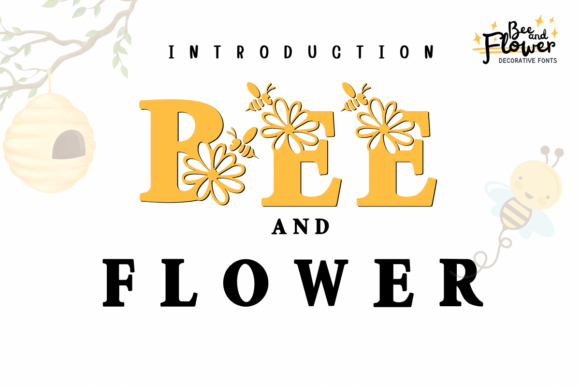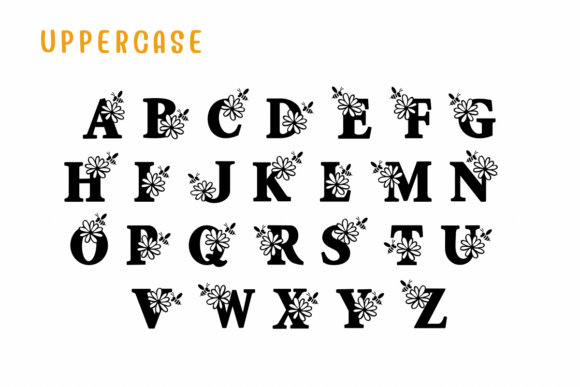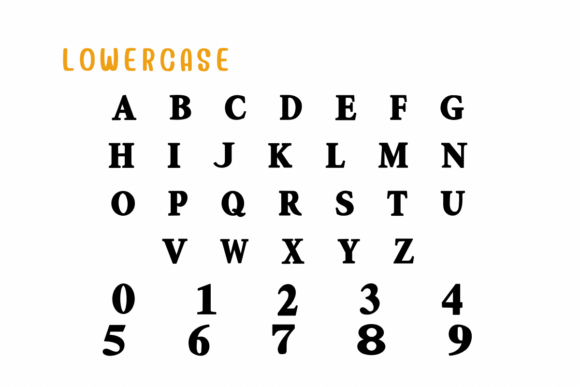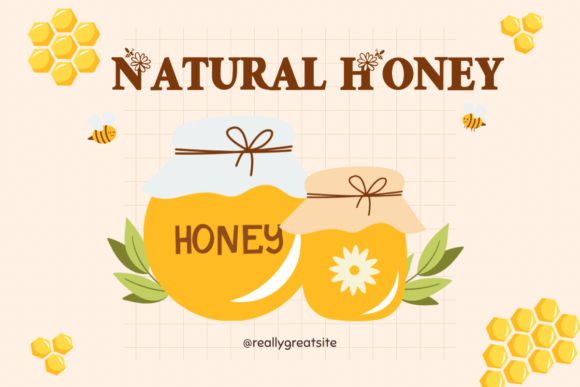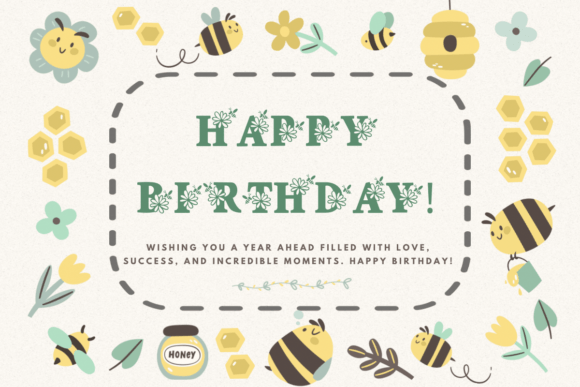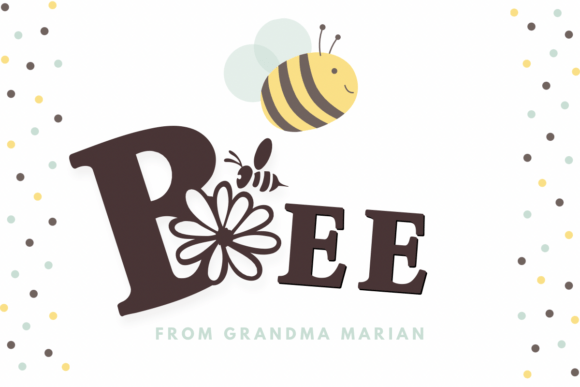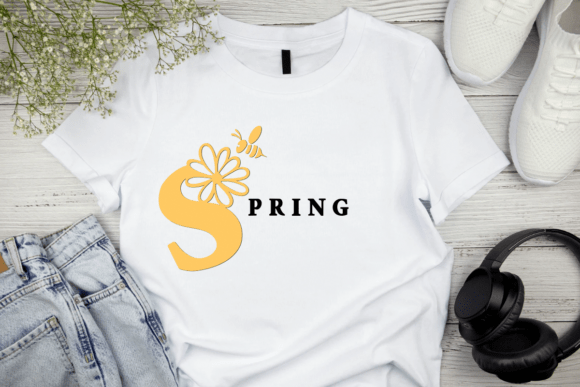
Get Ready to Bloom with Creativity
Have you ever sat down with a blank page, pen in hand, and felt the urge to let your imagination run wild? For many creatives, those moments are what spark some of their best work. Perhaps you’re a stationery enthusiast, a crafty maker, or a social media influencer looking to add a personal touch to your posts. Whatever your creative pursuit, you’re about to discover a font that will bring your ideas to life.
Introducing the charming Flower and Bee Font, a beautiful Decorative font that’s perfect for writing love letters, creating handmade cards, or even designing banners for your next event. Its whimsical style makes it an excellent choice for various projects, from mugs and t-shirts to social media posts and stationery. With the Flower and Bee Font, the possibilities are endless, making it a valuable asset for any designer looking to add a touch of elegance and whimsy to their work.
Key Features of Flower and Bee Font
- Font Style: A unique, hand-drawn font with floral and bee-inspired designs, ideal for children’s books, garden-themed projects, and nature-inspired artwork.
- Character Set: Includes uppercase and lowercase letters, numbers, punctuation marks, and special characters, making it suitable for a wide range of applications.
Designer Review: Flower and Bee Font
I recently had the chance to work with the “Flower and Bee Font” and I must say it’s a delightful addition to any design project. ✨ The intricate details and delicate illustrations of flowers and bees add a whimsical touch that’s sure to captivate audiences of all ages. ✨ The font’s playful nature makes it perfect for projects that require a sense of wonder and magic.
However, I did encounter a few limitations that are worth noting. ⚠️ The font’s file size can be quite large, which may cause issues with page loading times or file compatibility. ⚠️ Additionally, the font’s complexity may make it challenging to pair with other fonts or design elements, requiring some careful consideration and planning.
- Whimsical and playful design
- Intricate illustrations of flowers and bees
- Perfect for projects that require a sense of wonder and magic
- Large file size may cause issues with page loading times
- Complexity may make pairing with other fonts challenging
Overall, I think the “Flower and Bee Font” is a charming addition to any designer’s toolkit. While it may require some extra consideration and planning, the end result is well worth the effort.
The Flower and Bee Font is ideal for:
1. Gardening and floral-themed designs.
2. Children’s books and educational materials.
3. Wedding invitations and stationery.
Remember to use the font in a way that complements the overall design and message of your project.
Alternatives to Flower and Bee Font
Lobster Font is a beautiful script font that features a cursive and elegant design. It’s perfect for use in invitations, posters, and other creative projects where a touch of whimsy is needed. Compared to Flower and Bee Font, Lobster Font has a more formal and sophisticated feel, making it suitable for a wider range of applications.
Great Vibes Font is a modern script font that features a playful and casual design. It’s ideal for use in social media graphics, advertisements, and other digital projects where a fun and youthful vibe is desired. Unlike Flower and Bee Font, Great Vibes Font has a more relaxed and laid-back feel, making it perfect for informal projects.